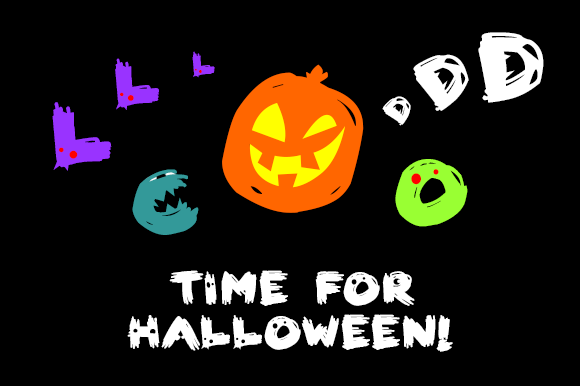
Introduction to Scary Horrors Font
Do you remember the excitement of staying up late on Halloween night, surrounded by spooky decorations and eerie sounds? It’s that same feeling of thrill and creativity that can be captured with the perfect design resource. For designers looking to add a touch of horror to their next creative project, look no further than the Scary Horrors Font.
With its high-quality design and creepy stylings, this font is perfect for anyone looking to create a spooky atmosphere. But what really sets it apart is the attention to detail – from the little monster faces hiding in the letters to the transparent background, every element has been carefully crafted to create a truly immersive experience.
Key Features of Scary Horrors Font
- High-quality design resource ideal for creative projects and horror-themed artwork.
- Scary Horrors Font features a transparent background, enabling seamless integration with other design elements.
- Includes a range of unique, eerie characters and symbols that add to the font’s spooky atmosphere.
Honest Review: Scary Horrors Font
As a designer, I’m always on the lookout for unique and high-quality design resources to elevate my creative projects. The Scary Horrors Font caught my eye, and I decided to give it a try.
What works well with the Scary Horrors Font is its bold and eerie aesthetic, perfect for creating spooky or mysterious vibes in designs. The font is available for free download, which is a major plus for designers on a budget. The transparent background is also a nice touch, allowing for easy integration with other design elements.
- ✨ Unique and bold aesthetic
- ✨ Transparent background
However, I did encounter a few limitations with the Scary Horrors Font. The font is not very versatile and can be a bit overwhelming if used in large quantities. Additionally, the font’s consistency can be a bit off, which may require some adjustments to achieve a uniform look.
- ⚠️ Limited versatility
- ⚠️ Inconsistent font rendering
Overall, I’d say the Scary Horrors Font is a great addition to any designer’s toolkit, especially for creative projects that require a spooky or mysterious atmosphere. Just be mindful of its limitations and use it thoughtfully.
The Scary Horrors Font is a high-quality design resource ideal for creative projects requiring a spooky or eerie atmosphere. This free download offers a unique and captivating design element that can elevate your project’s aesthetic.
- Horror movie posters and trailers
- Spooky-themed party invitations and decorations
- Creepy blog posts and articles
The Scary Horrors Font is perfect for:
Alternatives to Scary Horrors Font